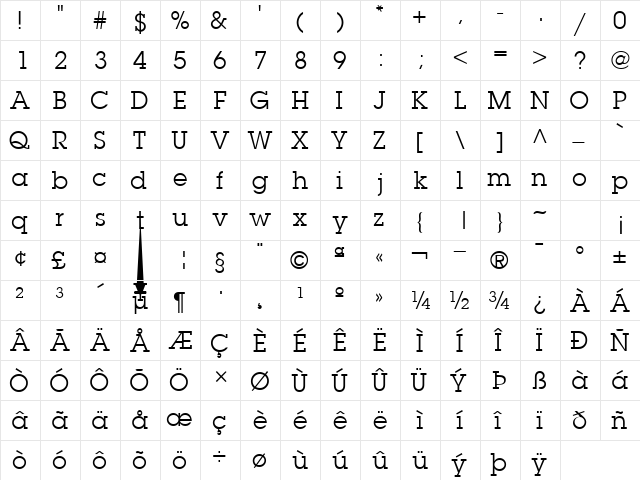
TorrentGraphicSSK Regular Font Preview
TorrentGraphicSSK Regular
Design Context for TorrentGraphicSSK Typeface
TorrentGraphicSSK offers clean, dependable letterforms without strong stylistic allegiance, making it a practical choice for designers who need flexibility.
Pro Tip: Use TorrentGraphicSSK in both headline and body roles to test its range before committing to a single application.